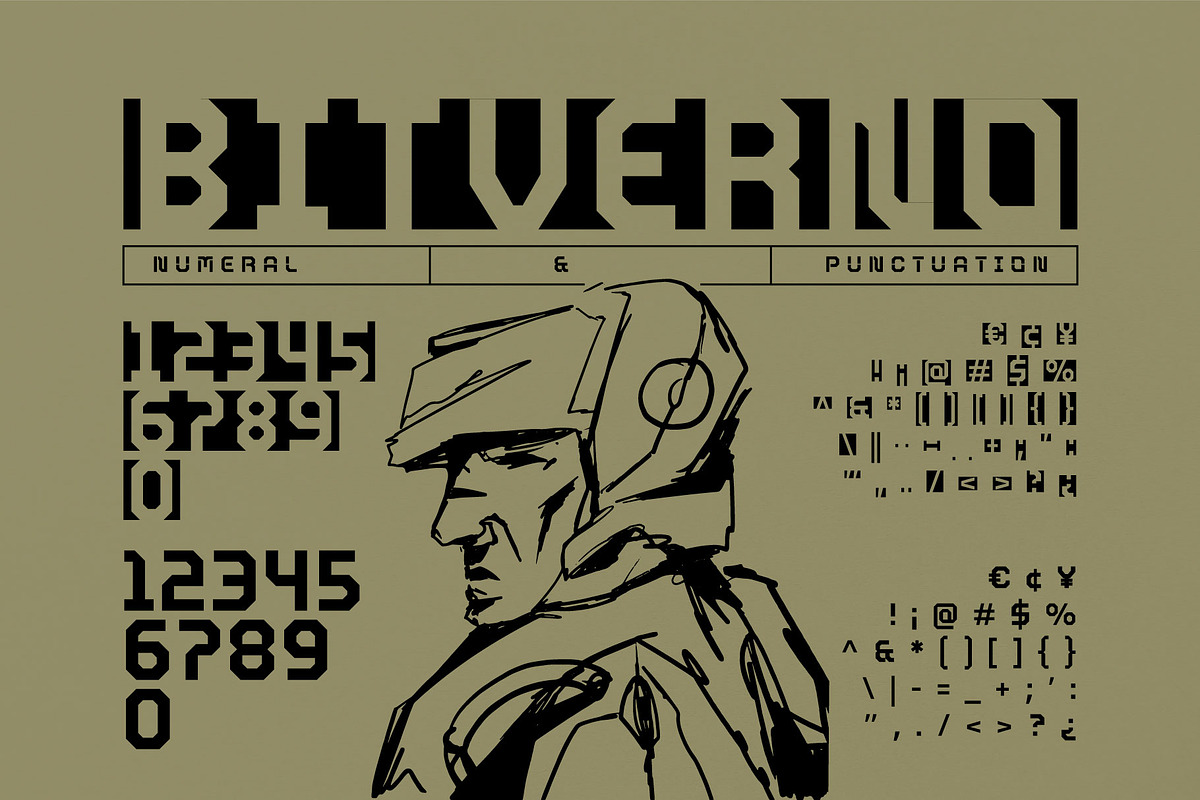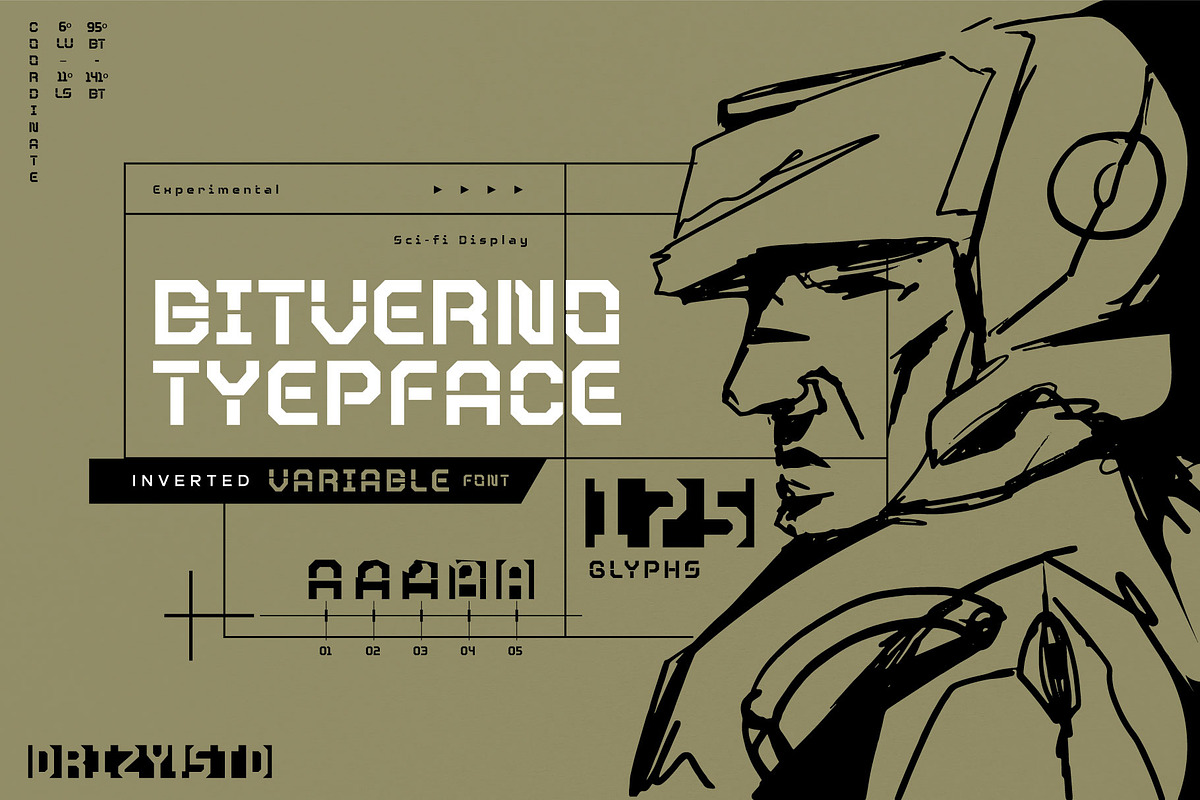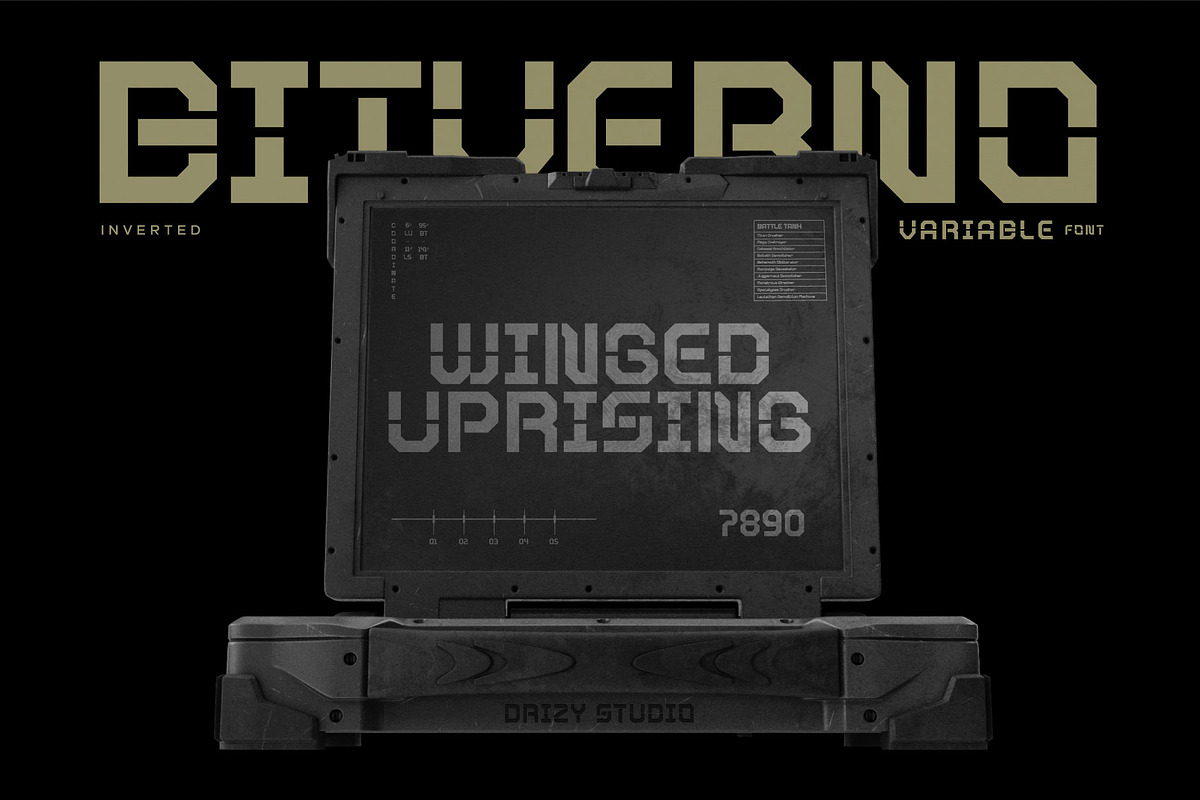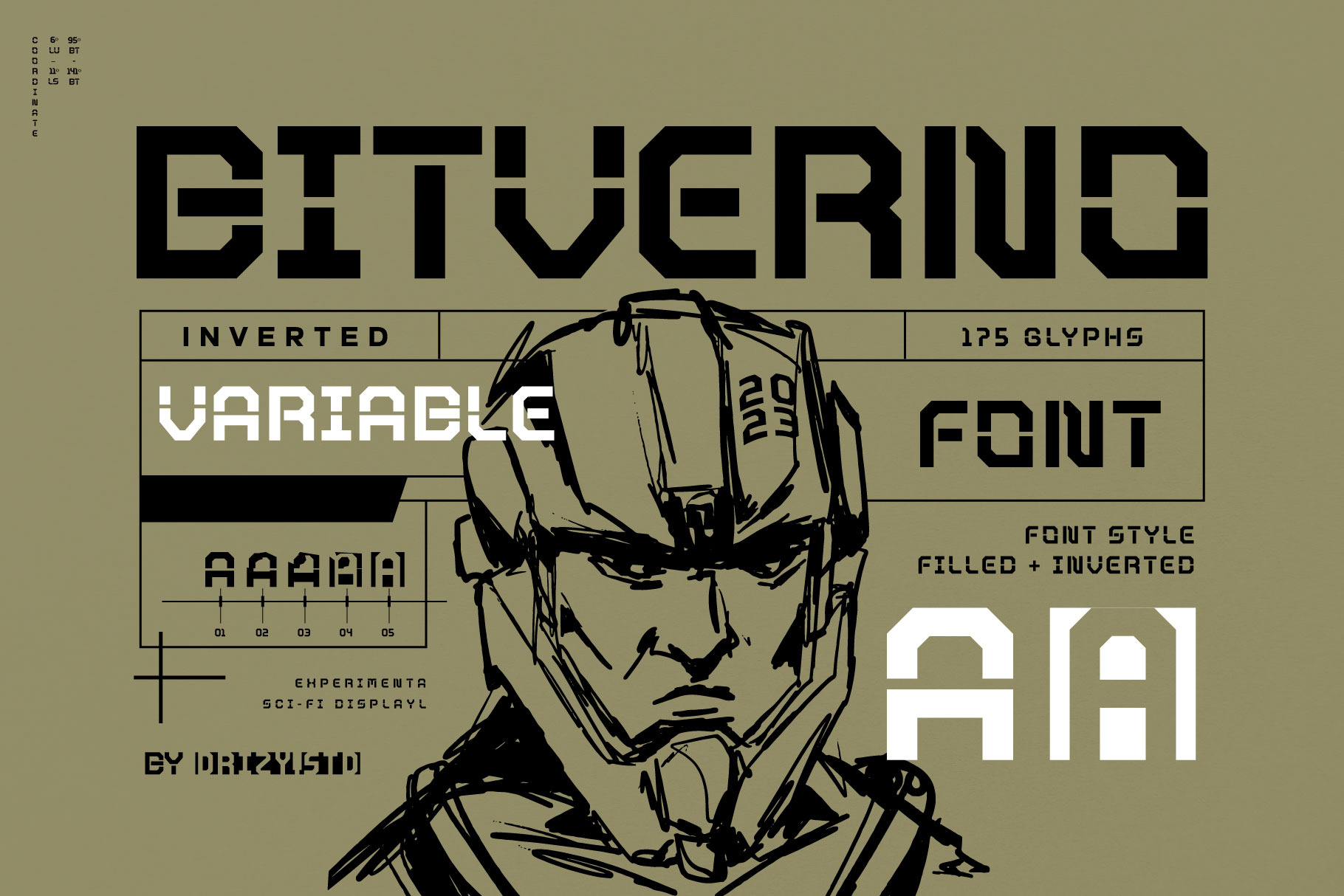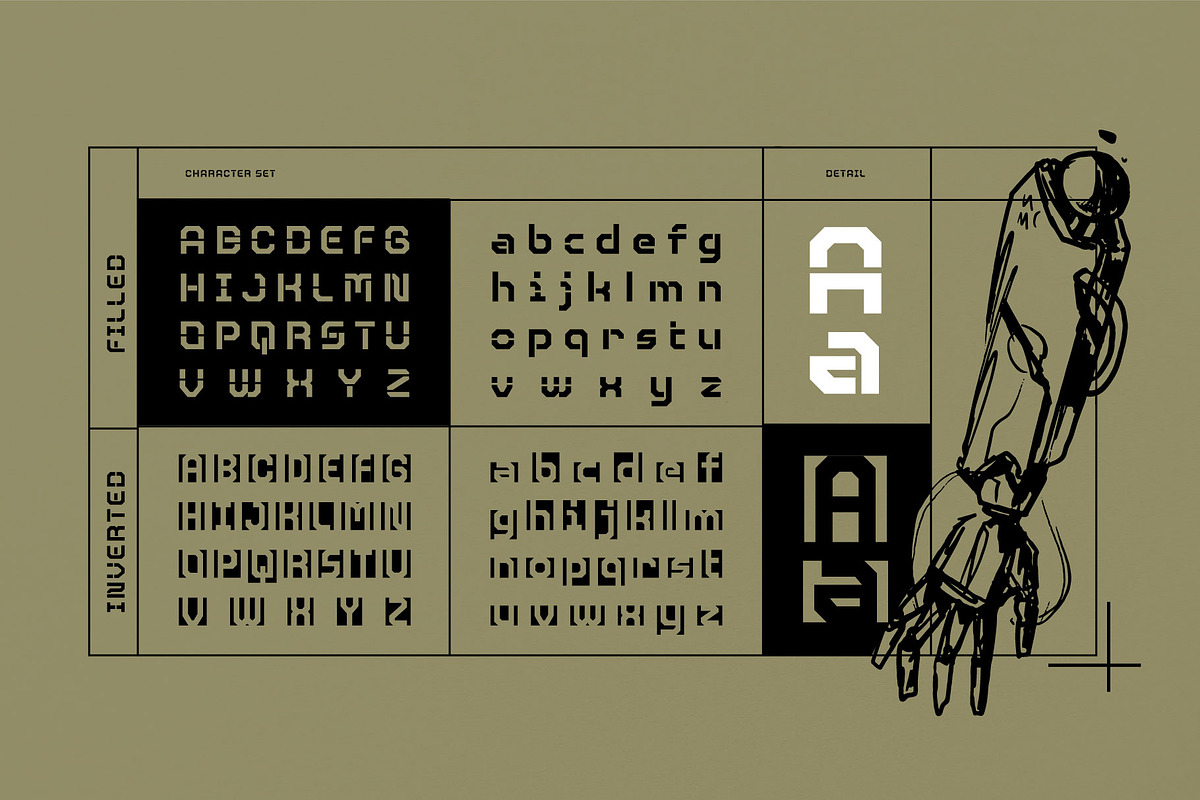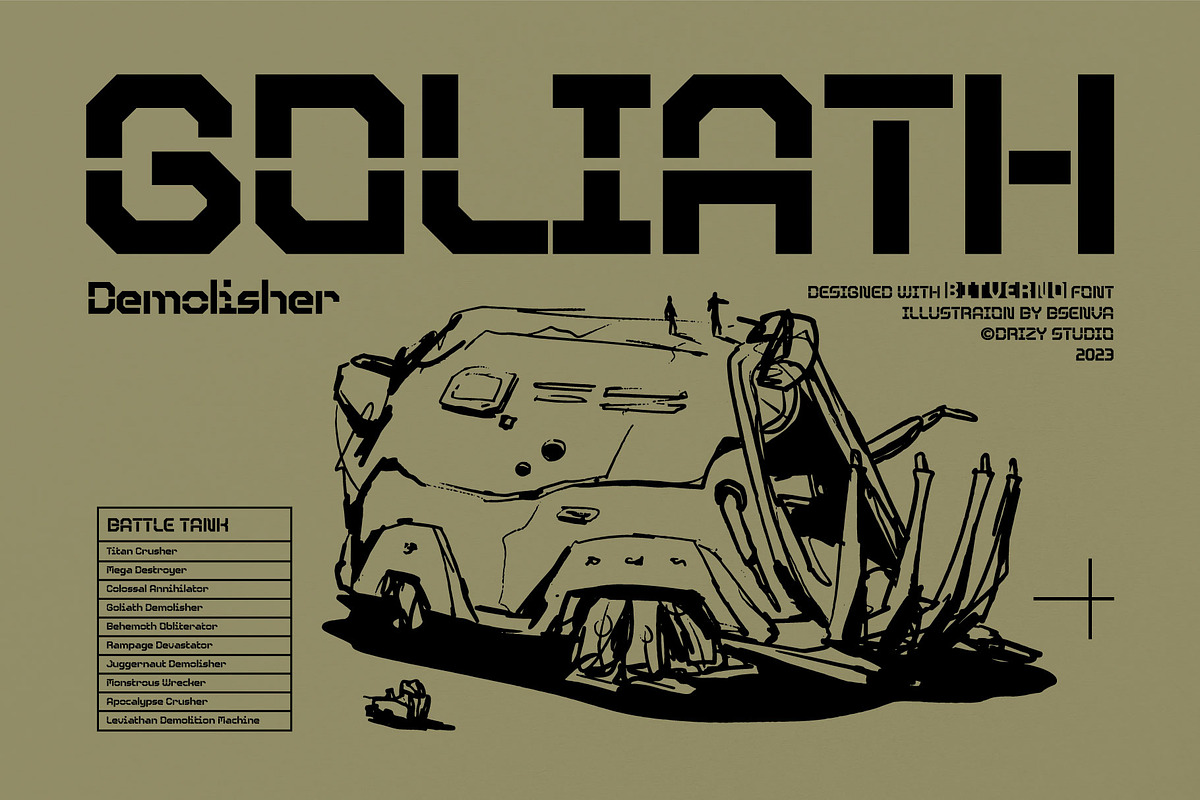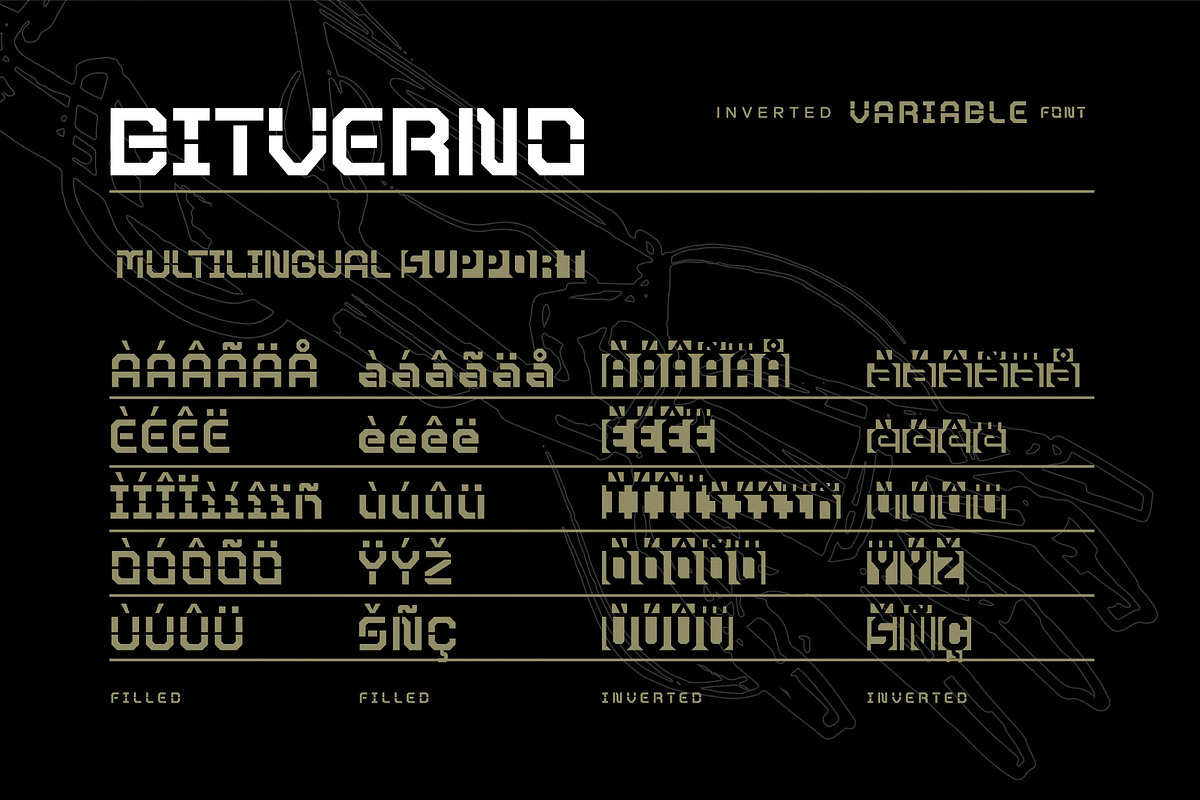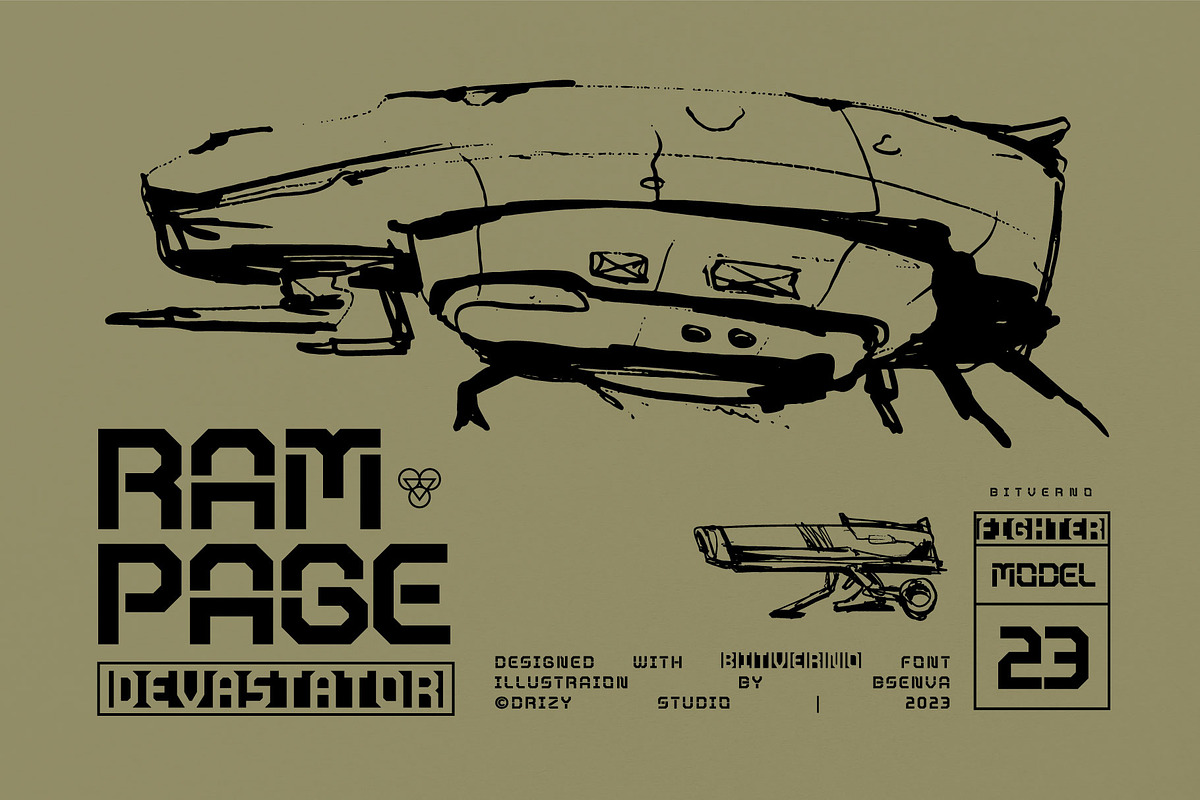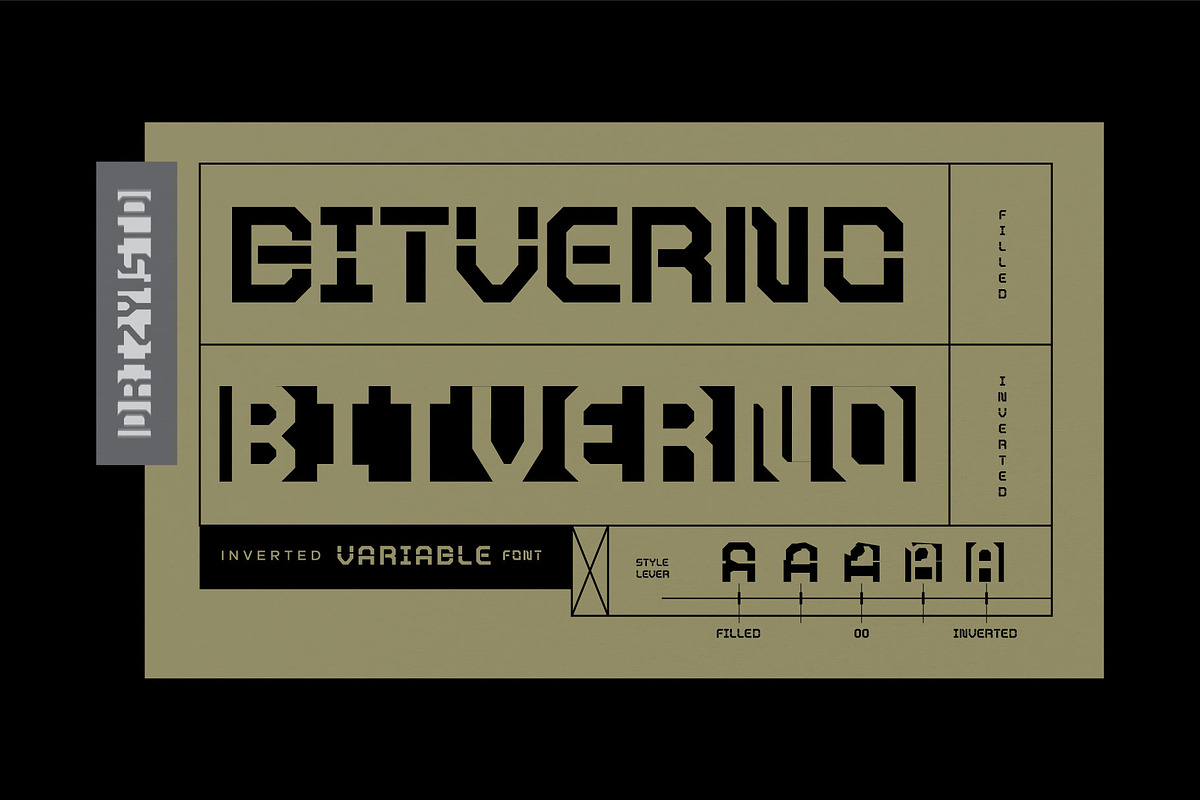
Bitverno - Experimental Sci-fi Font
Bitverno is a groundbreaking experimental sci-fi variable font that pushes the boundaries of typographic design into uncharted realms. Born at the intersection of technology and creativity, Bitverno redefines the conventional notions of typefaces, offering a dynamic and ever-evolving visual experience.
Bitverno features: Character Set Variable: Inverted & Filled Punctuation & Numbers Multilingual Support